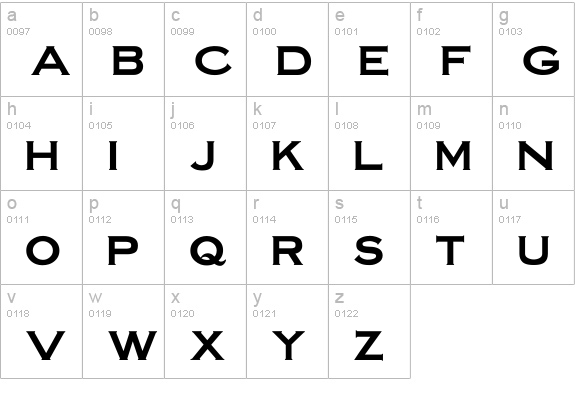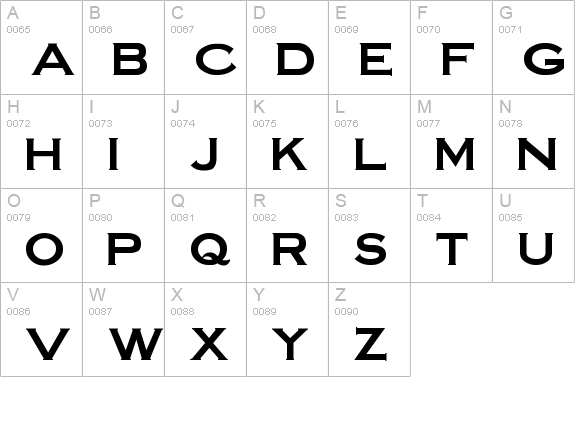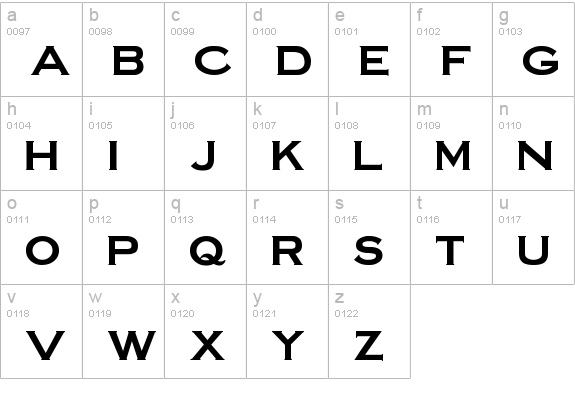
Steelman Font Details
Steelman font is a versatile and modern typeface that showcases the strength and elegance of steel. With its clean lines, sharp edges, and bold presence, this font is perfect for creating impactful designs that demand attention. The beautifully crafted characters of Steelman font exude confidence and professionalism, making it suitable for a wide range of projects. Whether you're designing a logo, creating eye-catching headlines, or enhancing your digital or print materials, this font will surely make a lasting impression. One of the best features of Steelman font is that it is completely free. Yes, you read that right! This stunning font is freely available to download at FontsMarket.com. So, you can easily get your hands on this powerful and stylish typeface without spending a dime. By offering Steelman font for free, FontsMarket.com aims to empower designers, entrepreneurs, and creatives from all walks of life, giving them access to high-quality typography that can truly elevate their work. With its sleek and sophisticated design, Steelman font is a must-have in any designer's toolkit. So, why wait? Head over to FontsMarket.com and download Steelman font today. Unleash your creativity and let this remarkable typeface help you make a bold statement in your designs.